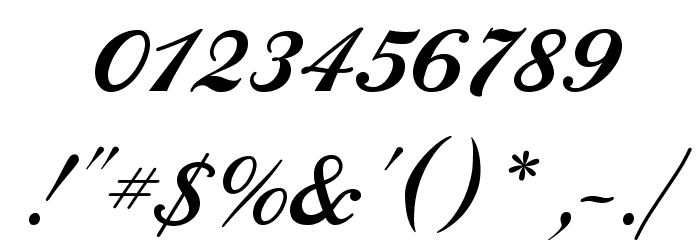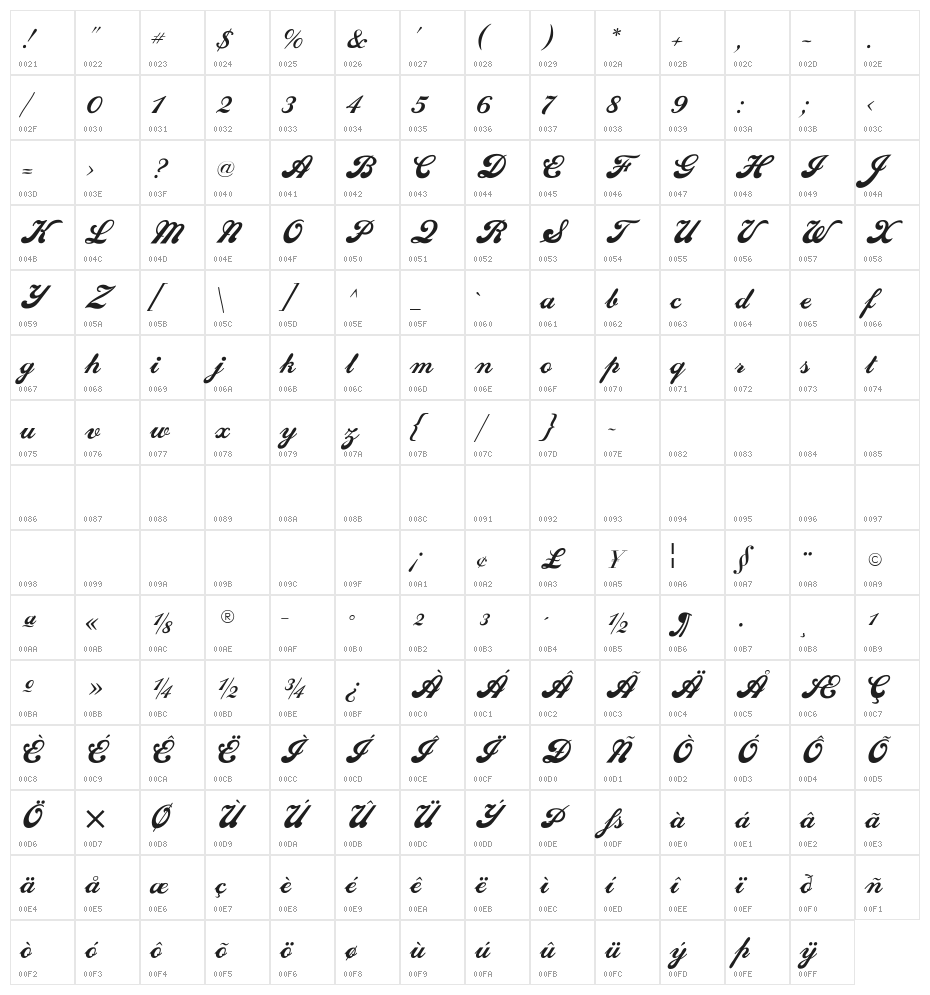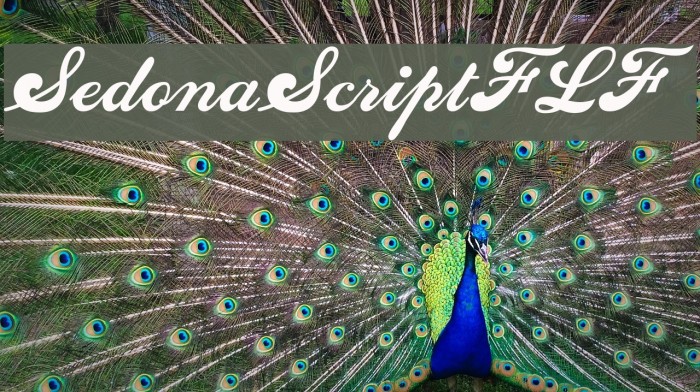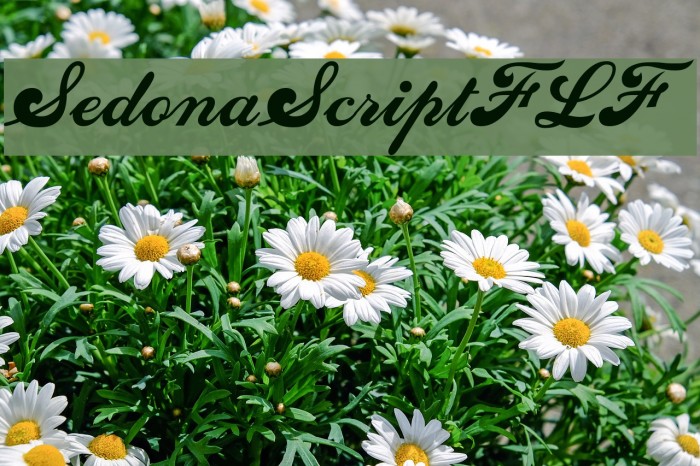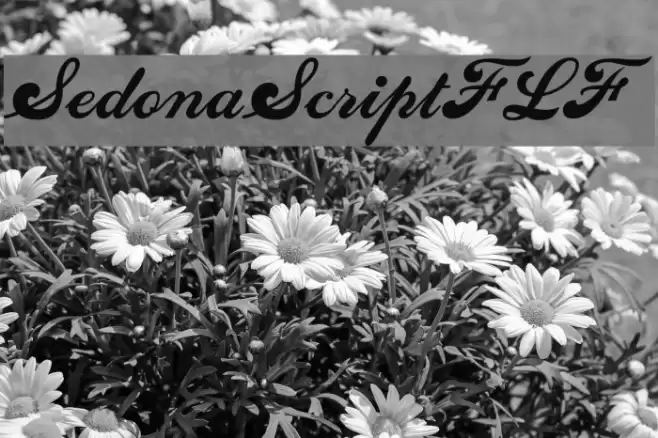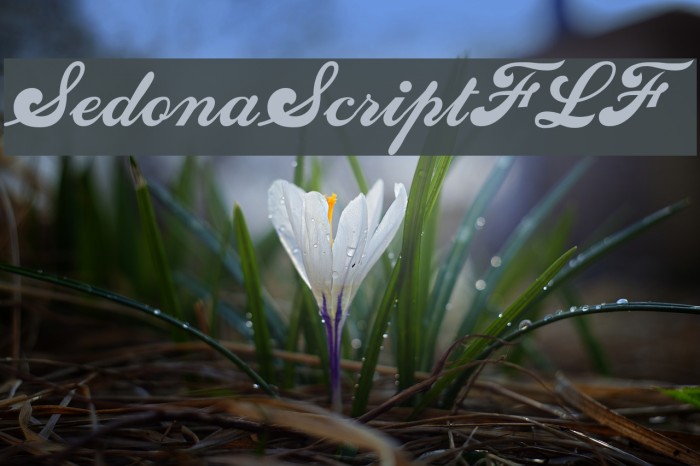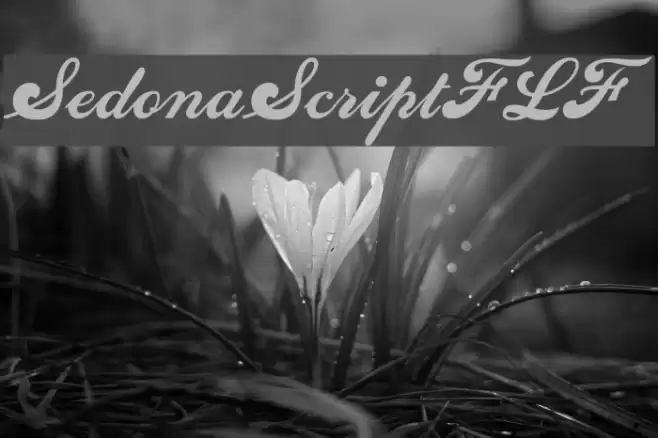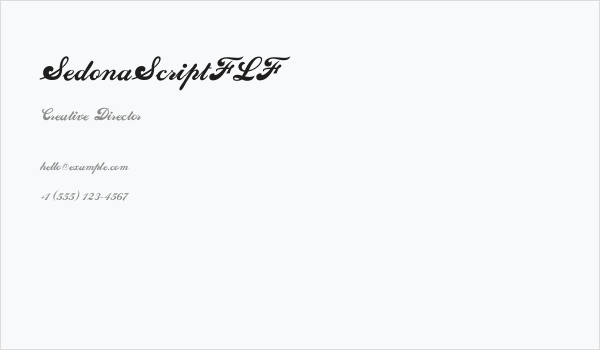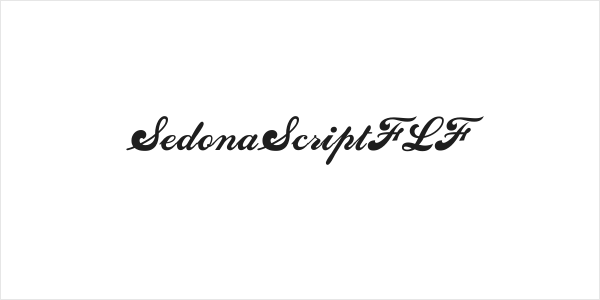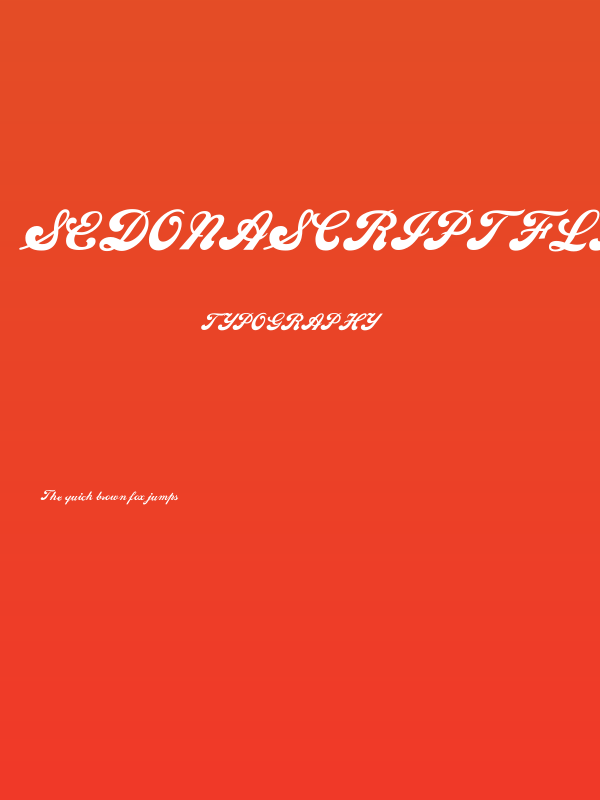
SedonaScriptFLF Font
SedonaScriptFLF Description
This elegant script font features flowing, cursive letters with a classic and sophisticated style. The uppercase letters are bold and ornate, with sweeping curves and flourishes that give a sense of movement and grace. The lowercase letters maintain a consistent style, with smooth connections between characters, enhancing the font's readability. Numbers and special characters are designed to match the overall aesthetic, ensuring a cohesive look across all text. The font's high contrast between thick and thin strokes adds to its dramatic appearance, making it suitable for formal and decorative uses.
| Use Case | Logos, Invitations, Decorative Headlines |
| Proposed Projects | Ideal for wedding invitations, elegant branding, greeting cards, and decorative headlines. |